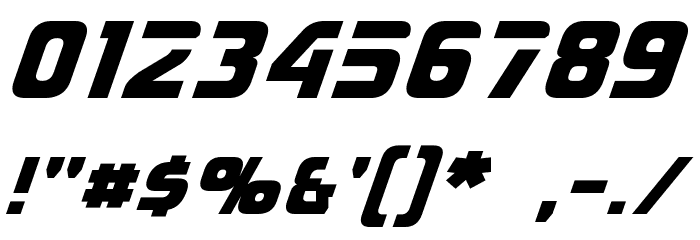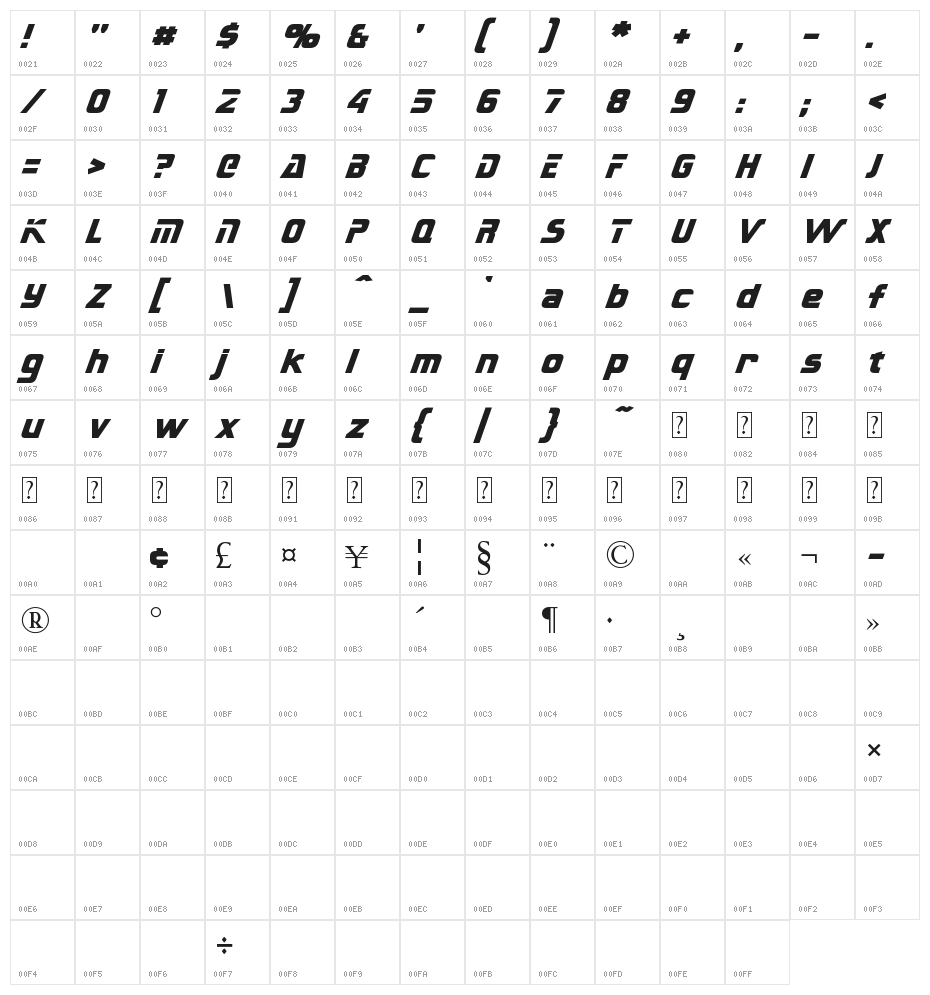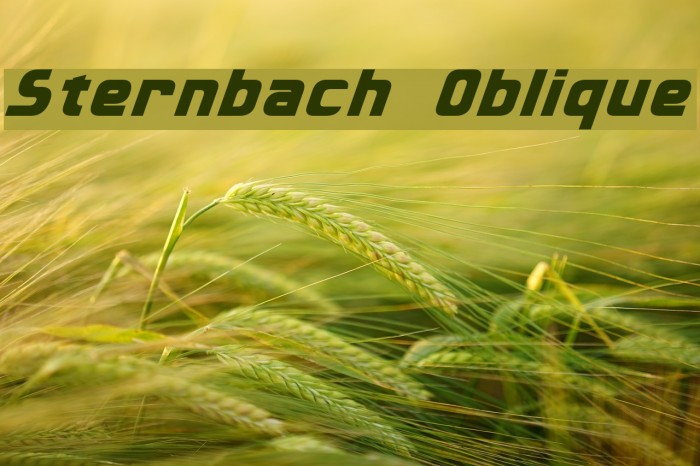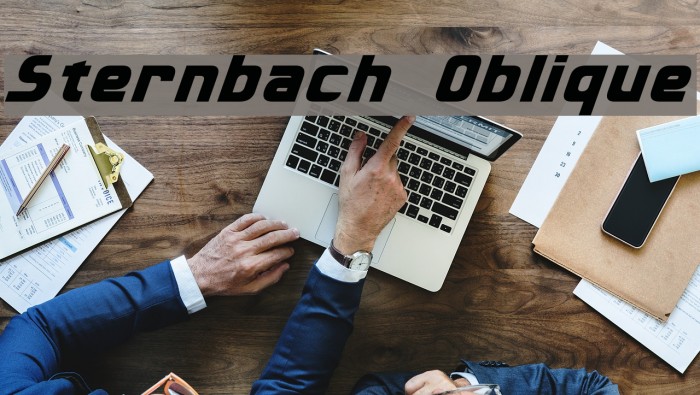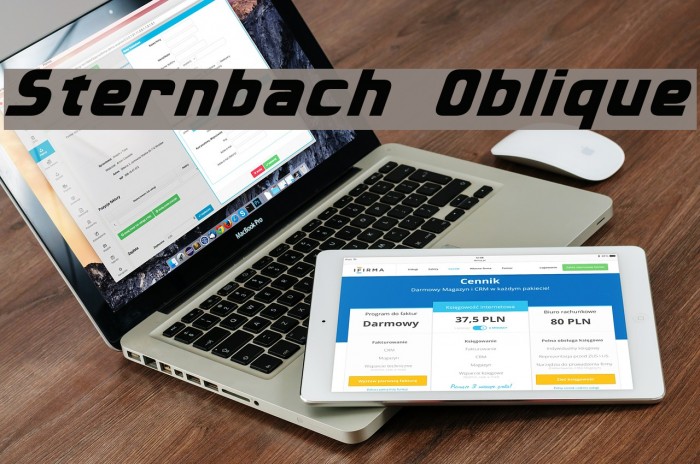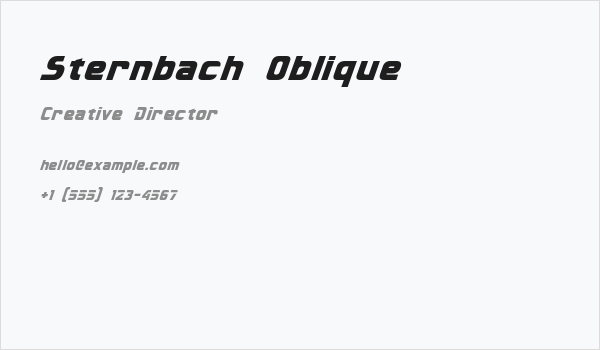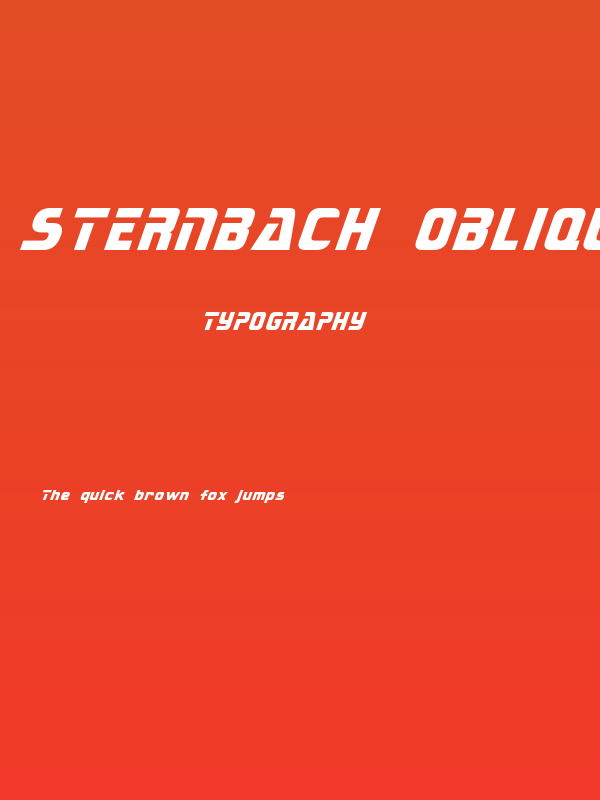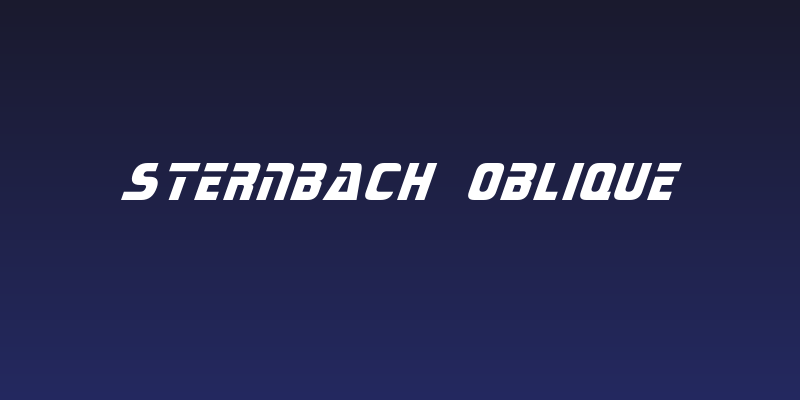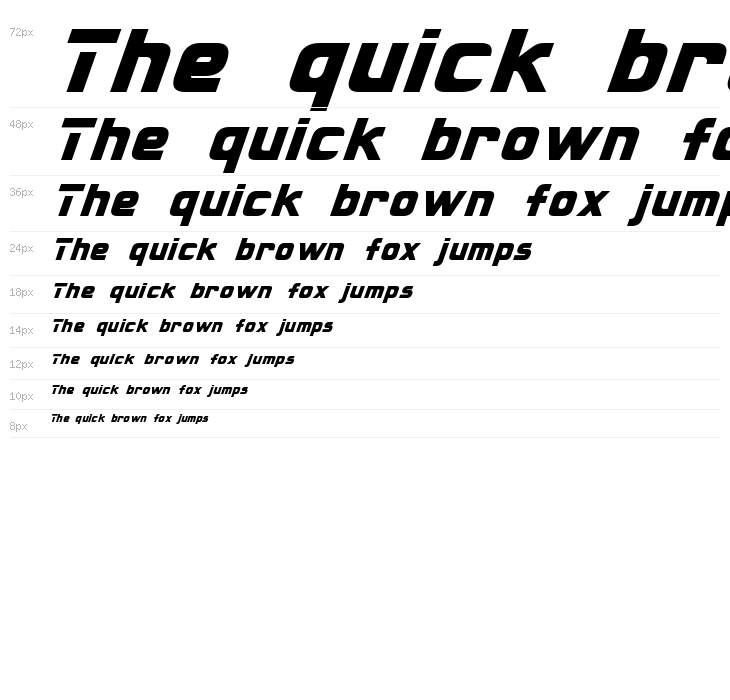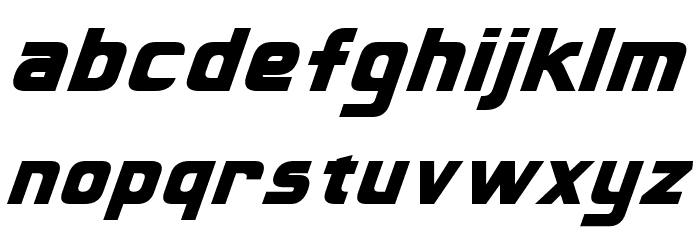
Sternbach Oblique Font
Sternbach Oblique Description
This font features a bold, oblique style with a futuristic and dynamic appearance. The characters are slanted, giving a sense of motion and speed. The uppercase and lowercase letters maintain a consistent slant, enhancing the cohesive look. The numerals and special characters follow the same design principles, ensuring uniformity across all glyphs. The strokes are thick and consistent, providing a strong visual impact. This font is well-suited for projects that require a modern and energetic feel.
| Proposed Projects | Ideal for sports branding, technology logos, dynamic posters, and modern advertising campaigns. |